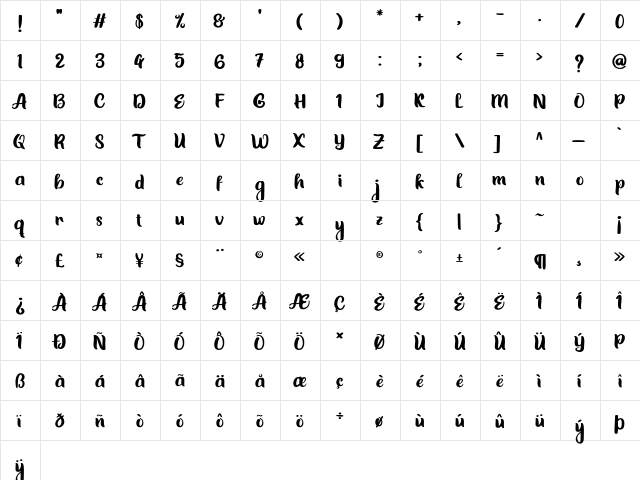
Bedepa Regular
Design Context for Bedepa Typeface
Bedepa is a composed and adaptable typeface that performs quietly and consistently across a wide range of design contexts.